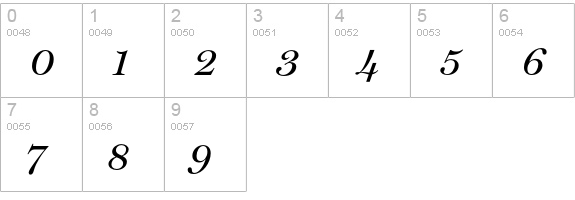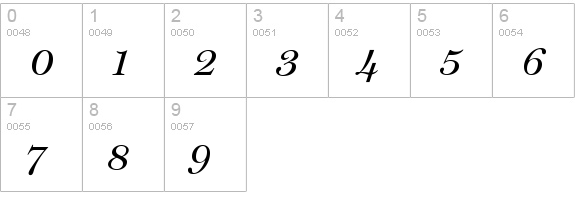
MillerDisplay-ItalicSC font is a stylish and elegant typeface that exudes sophistication and charm. With its delicate italicized design, this font is perfect for adding a touch of elegance to any project. The slender and graceful curves of the letters make MillerDisplay-ItalicSC an ideal choice for headings, invitations, and other design projects that require a refined and classy look. What sets MillerDisplay-ItalicSC font apart is that it is not only visually appealing but also freely available to download at FontsMarket.com. This means that you can enhance your designs with this beautiful font without any cost. Whether you are working on a personal project or a professional design, MillerDisplay-ItalicSC font is sure to elevate your work and leave a lasting impression. Download it today and add a touch of sophistication to your creations.